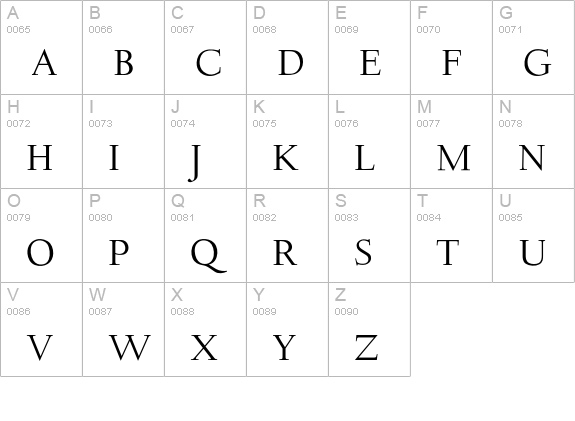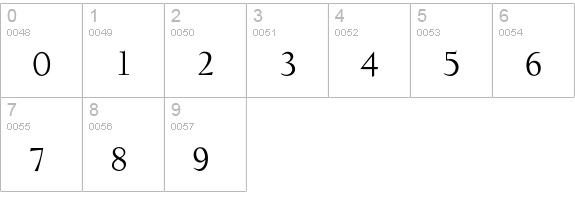
ChampagneNormal Font Details
ChampagneNormal font is a stylish and elegant typeface that exudes sophistication and charm. With its classic design and sleek lines, this font is perfect for adding a touch of luxury to any project. Whether you're designing a wedding invitation, creating a logo, or crafting a branding package, ChampagneNormal font will elevate your work to the next level. And the best part? ChampagneNormal font is available for free download at FontsMarket.com. That's right, you can add this exquisite font to your collection without any cost. Don't miss out on the opportunity to enhance your designs with this beautiful typeface. Download ChampagneNormal font today and let your creativity shine!